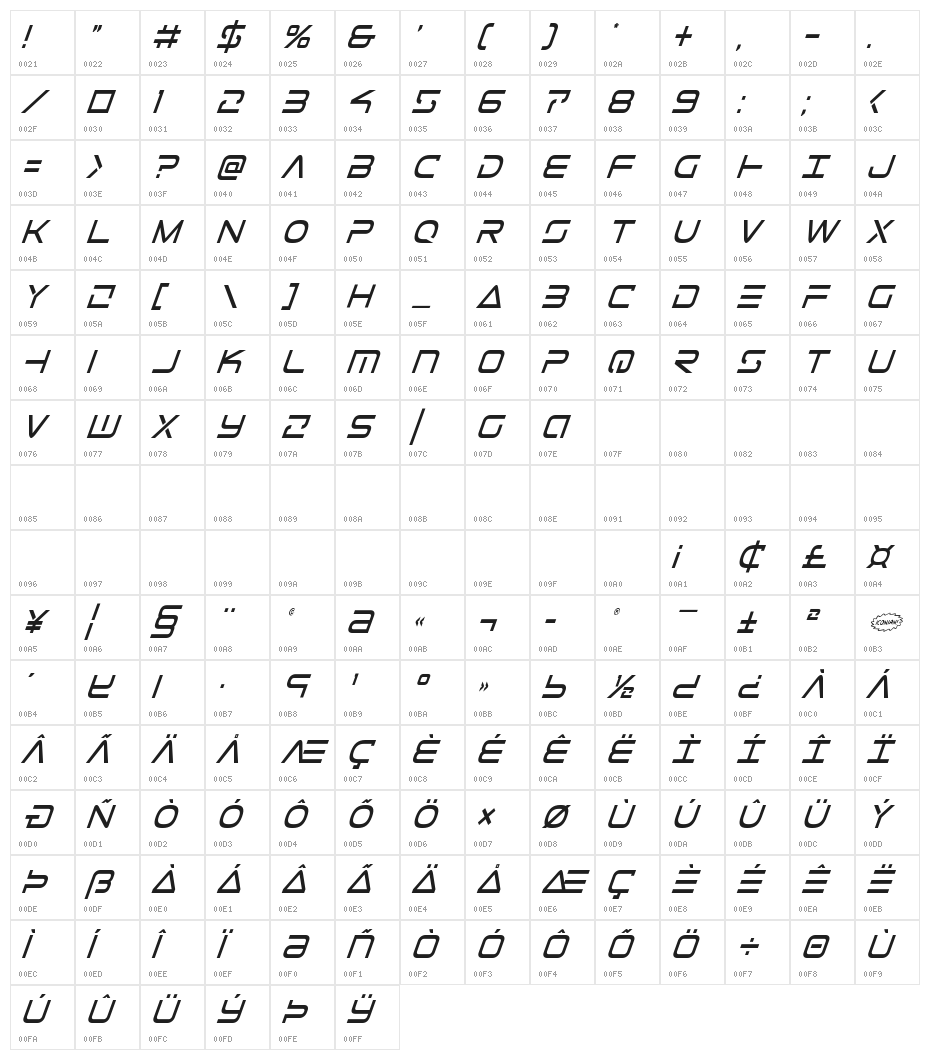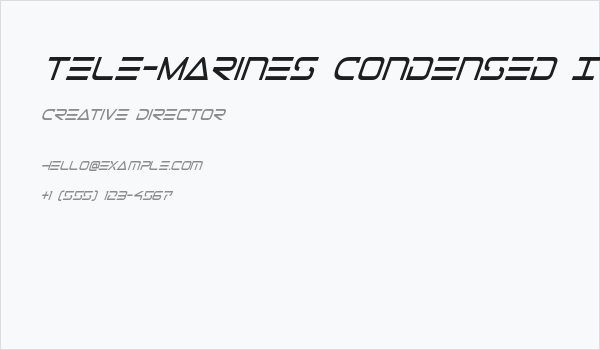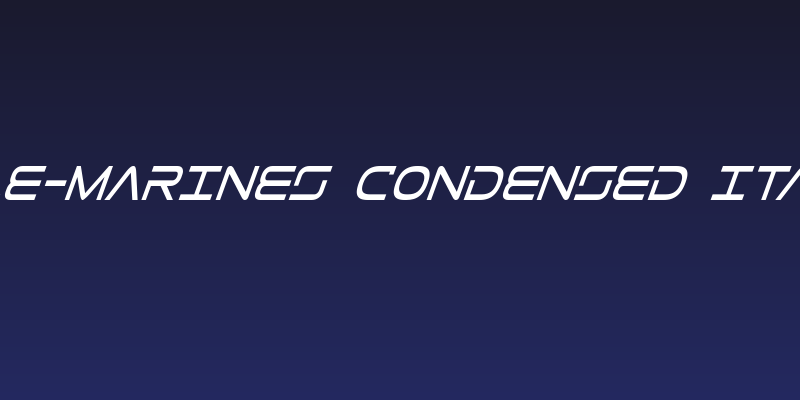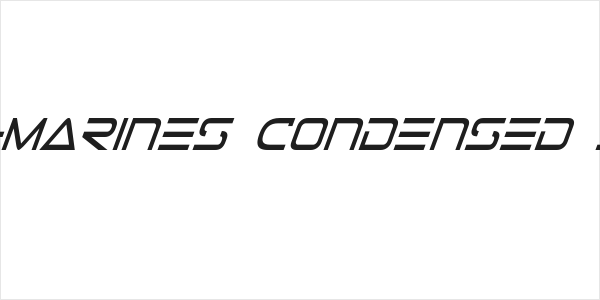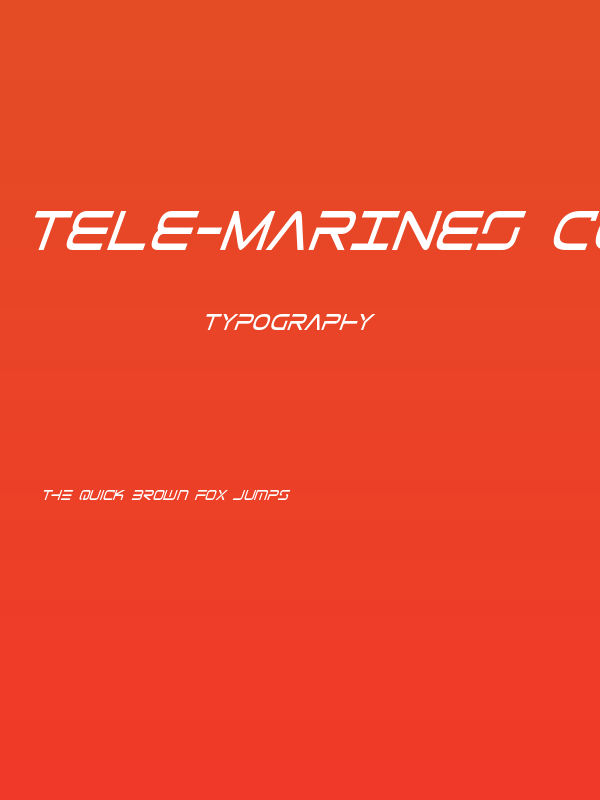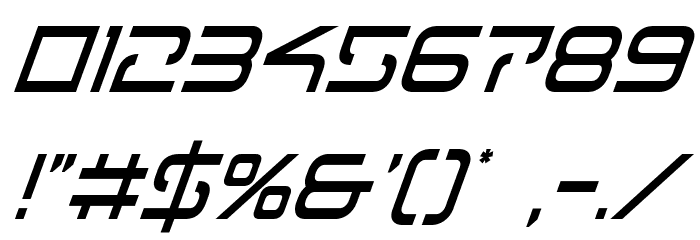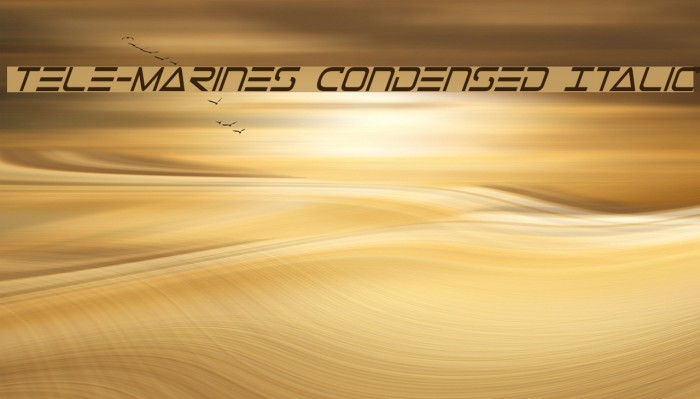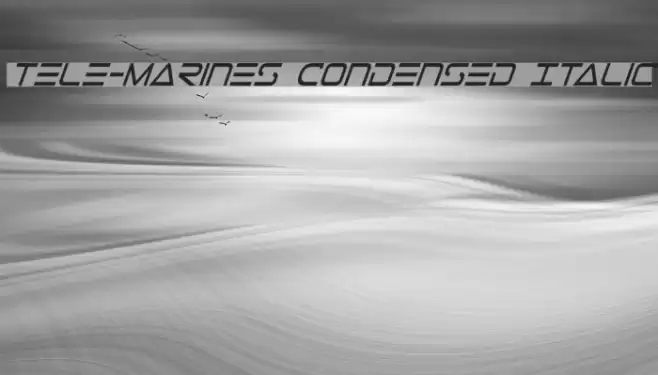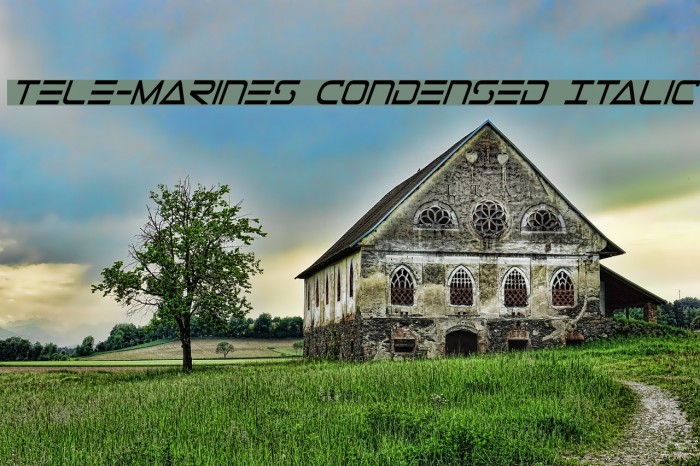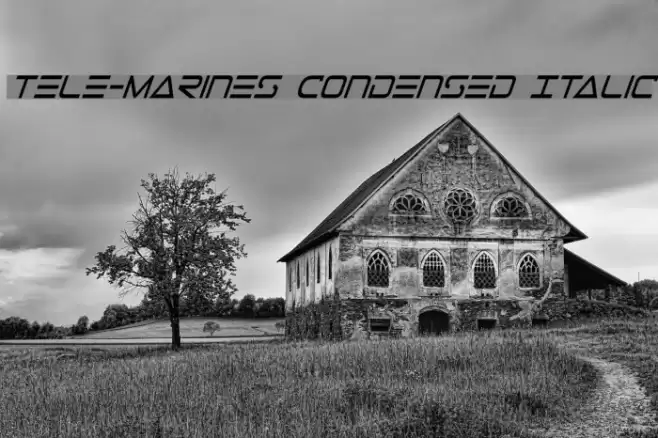
Tele-Marines Condensed Italic Font
Tele-Marines Condensed Italic Description
This font features a futuristic and sleek design with a condensed and italicized style. The characters are sharply angled, giving a sense of motion and speed. The uppercase letters are bold and dynamic, while the lowercase letters maintain a consistent flow. Numbers and special characters are designed to match the overall aesthetic, making them ideal for modern and tech-oriented projects. The font's unique style is both eye-catching and functional, suitable for various creative applications.
| Use Case | Headlines, Logos, Branding |
| Proposed Projects | Ideal for tech branding, sci-fi themed designs, video game interfaces, and modern advertising. |